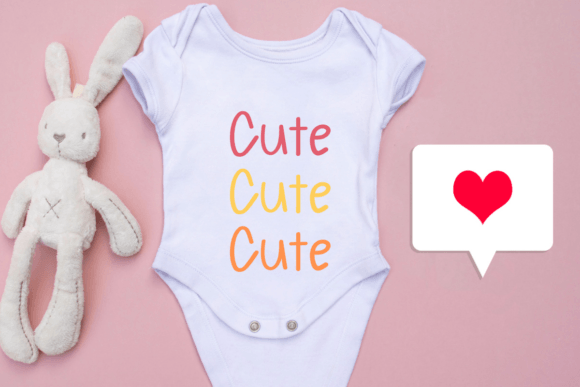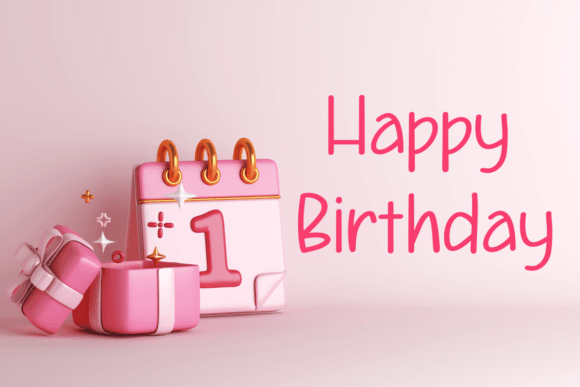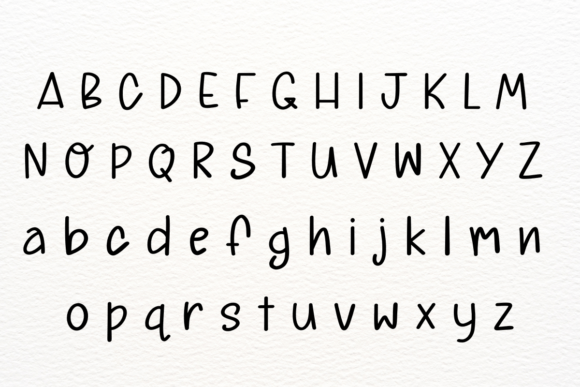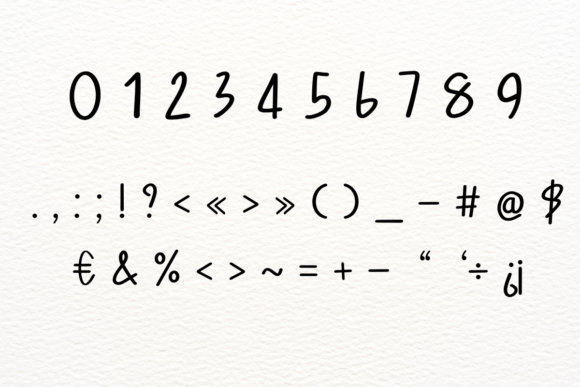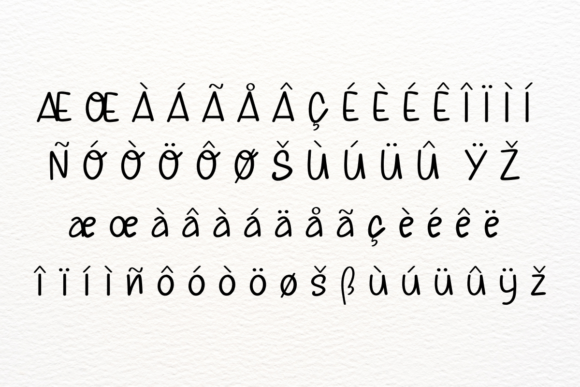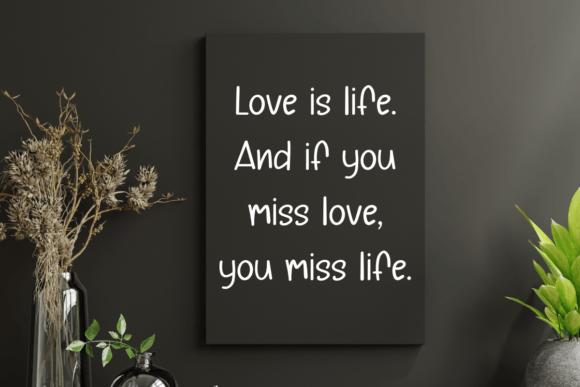
Caterina Font: Elevate Your Designs with a Timeless Handwritten Style
In the world of digital design, fonts play a crucial role in conveying messages, evoking emotions, and creating visual identities. Among the myriad of fonts available, Caterina Font stands out for its distinct and timeless handwritten style. This versatile font is perfect for designers and crafters looking to add a personal touch to their projects. In this article, we’ll explore the unique features of Caterina Font and how it can be used to create spectacular designs for various occasions.
The Unique Charm of Caterina Font
Caterina Font boasts an incredibly distinct and timeless style that sets it apart from other fonts. Its handwritten nature gives it a personal and approachable feel, making it ideal for projects that require a touch of warmth and personality. The font’s unique charm lies in its ability to evoke a sense of nostalgia and authenticity, making it perfect for designs that aim to connect with the audience on a more intimate level.
One of the key advantages of Caterina Font is its versatility. It can be used across a wide range of projects, from fun and festive designs to more formal and elegant ones. Whether you’re working on Easter, back to school, wedding, party decoration, invitations, Fall, Halloween, Christmas, posters, blogs, clothing, child-related designs, greeting cards, cloth bags, mugs, or social media posts, Caterina Font is an awesome addition to your design toolkit.
Perfect for Festive and Seasonal Designs
Caterina Font shines in festive and seasonal designs. Imagine creating vibrant Easter egg hunt posters, charming back to school banners, or spooky Halloween party invitations with this font. Its playful and whimsical nature makes it perfect for designs that require a fun and lively touch. For Christmas, you can use Caterina Font to create heartwarming holiday cards, festive posters, or merry social media posts that capture the essence of the season.
Elegant and Sophisticated Wedding and Party Designs
For more formal occasions like weddings and parties, Caterina Font can add a touch of elegance and sophistication. Use it to design beautiful wedding invitations, elegant party decorations, or chic greeting cards. The font’s handwritten style gives it a romantic and personal feel, making it perfect for designs that require a touch of warmth and intimacy.
Unleash Your Creativity with Caterina Font
The true power of Caterina Font lies in its ability to unleash your creativity. With this font, the possibilities are endless. You can use it to create stunning posters, eye-catching social media posts, or beautiful greeting cards. Whether you’re a professional designer or a crafter, Caterina Font is an excellent choice for anyone looking to add a personal touch to their designs.
Why Choose Caterina Font?
- Unique and Timeless Style: Caterina Font boasts a distinct and timeless handwritten style that sets it apart from other fonts.
- Versatility: It can be used across a wide range of projects, from fun and festive designs to more formal and elegant ones.
- Perfect for Festive Designs: It’s ideal for creating vibrant and engaging designs for Easter, back to school, weddings, parties, Fall, Halloween, Christmas, and more.
In conclusion, Caterina Font is a versatile and charming handwritten font that can elevate your designs to new heights. Its unique and timeless style makes it perfect for a wide range of projects, from festive and seasonal designs to more formal and elegant ones. Whether you’re a designer or a crafter, Caterina Font is an excellent addition to your toolkit. So, why wait? Unleash your creativity and use Caterina Font to create spectacular designs that capture the hearts of your audience.